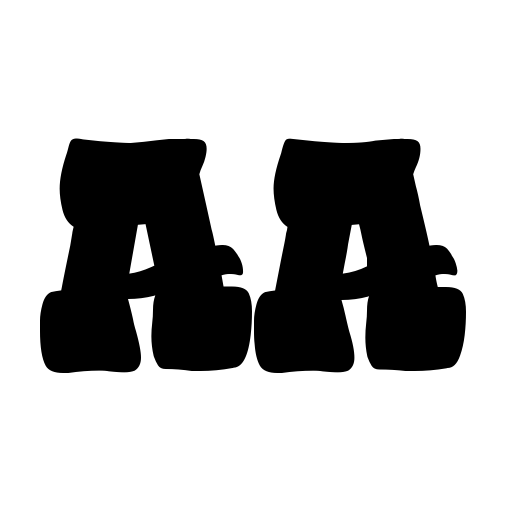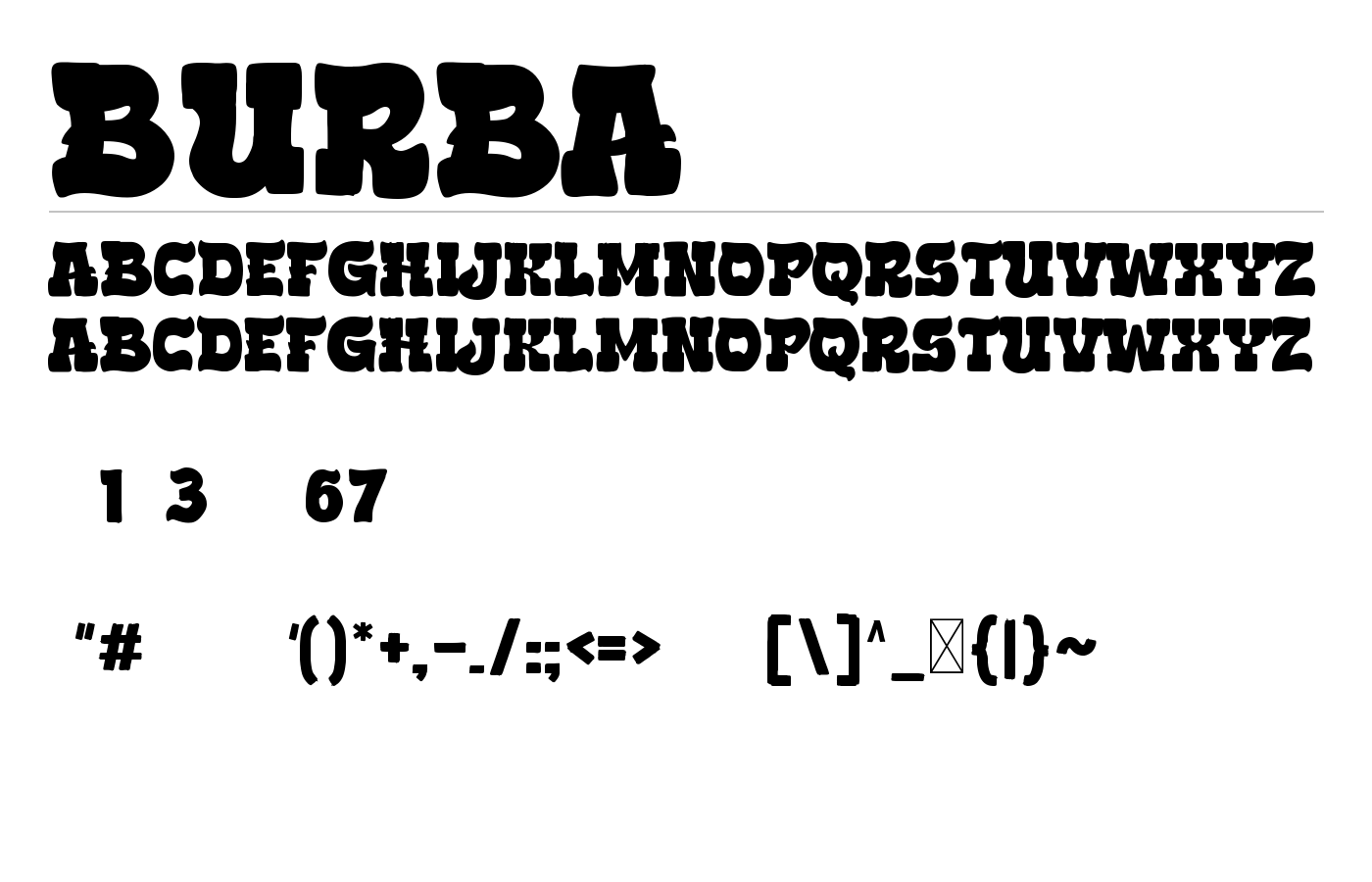
Burba is a bold, playful slab serif font with thick, rounded letterforms that exude a fun and quirky personality. Its chunky, heavy weight and slightly irregular shapes make it perfect for eye-catching headlines, logos, and packaging where a friendly, approachable vibe is desired. This font works well in creative and informal contexts, adding a unique, lively touch to designs that want to stand out.
burba Font
About burba Font
| Designer | Anang F & Malik Wsn | Gassstype© Studio 2022 |